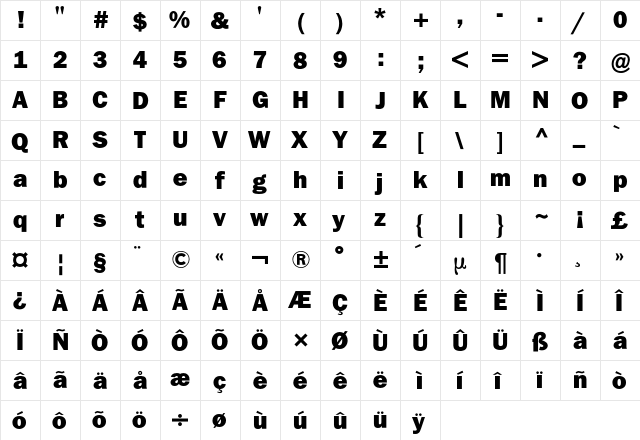
Franklin ITC BQ Regular Font Preview
Franklin ITC BQ Regular
Design Context for Franklin ITC BQ Typeface
Franklin ITC BQ is a composed and adaptable typeface that performs quietly and consistently across a wide range of design contexts.